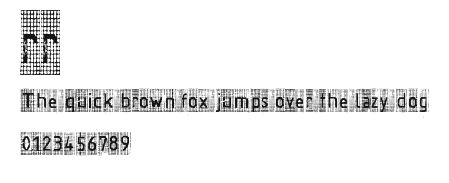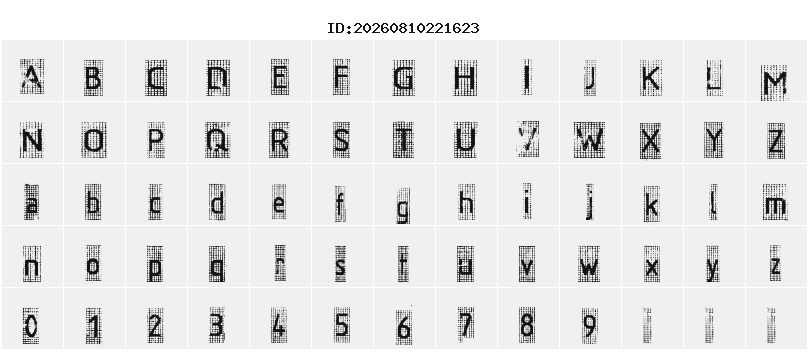
rr.ttf
rr.ttf is a modern, elegant sans-serif font designed for ultimate readability and visual harmony. Perfect for branding, headlines, web design, and print materials.